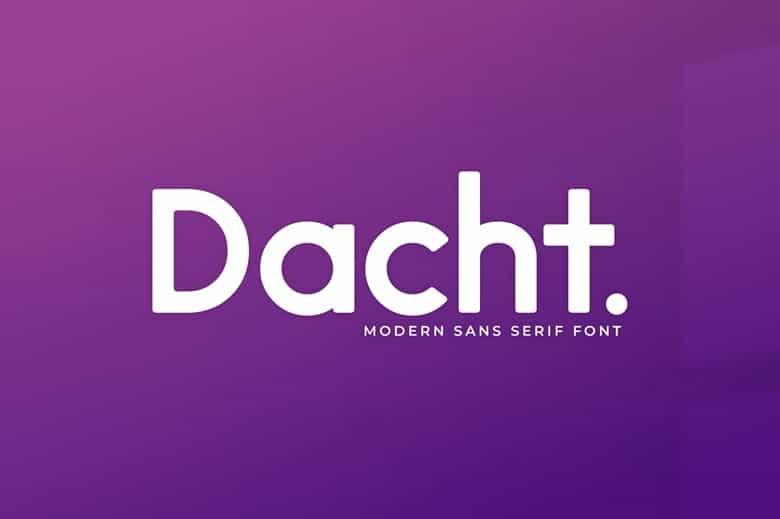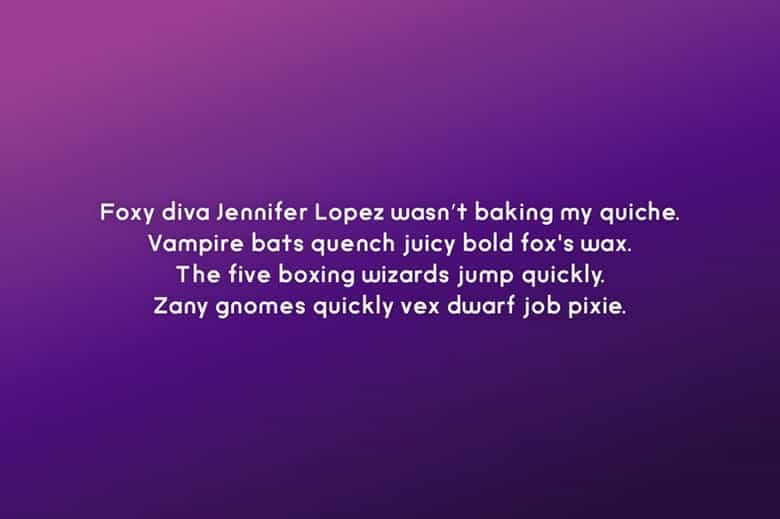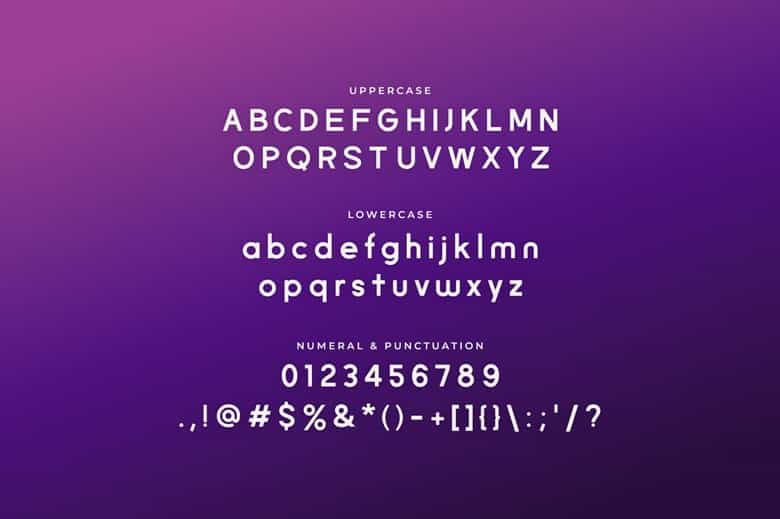
Dacht is a modern sans serif font which can be described with the help of simple geometric shapes.. The font is designed with rounded terminals and possesses a large amount of letter space making it generally friendly and can therefore be used in as many design projects as possible.